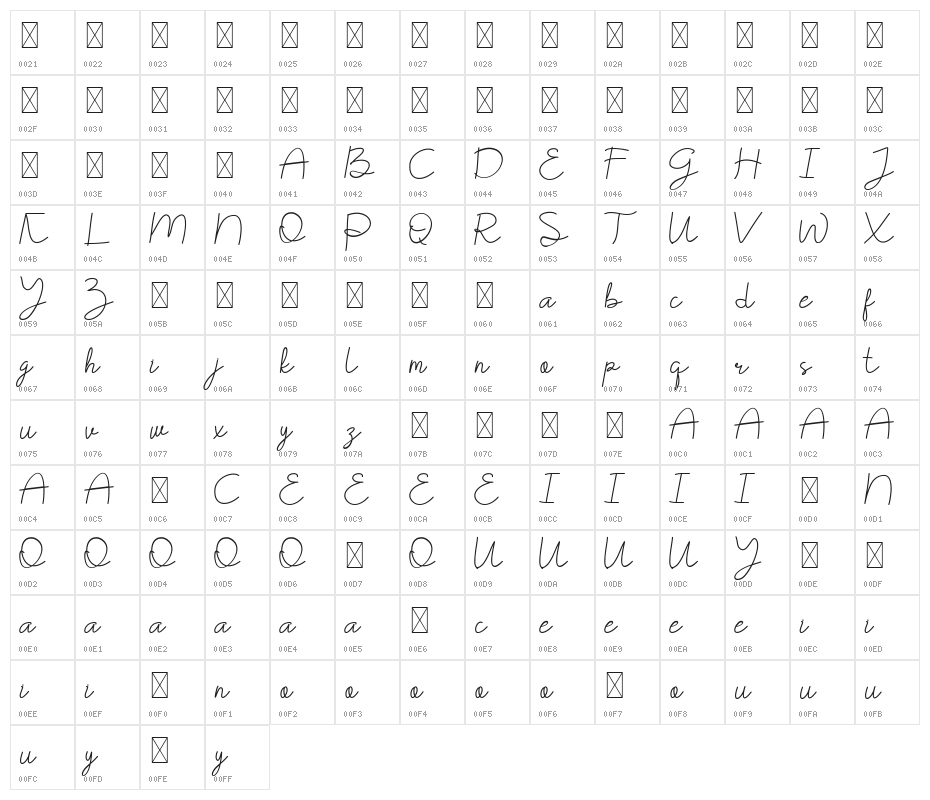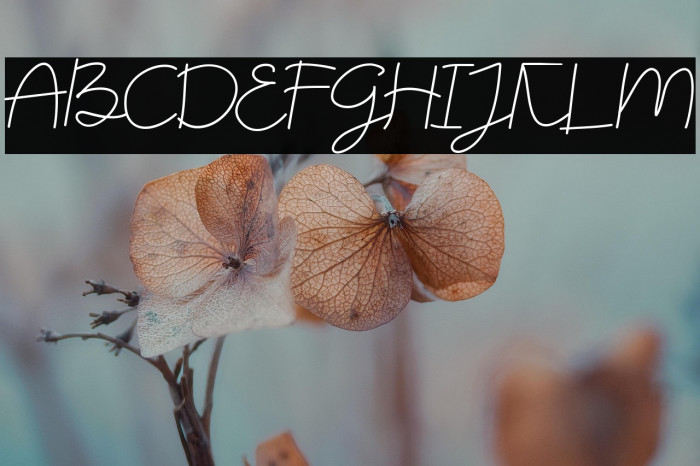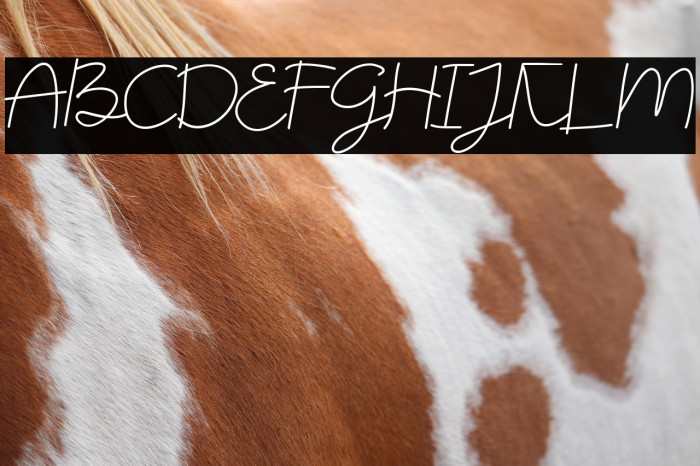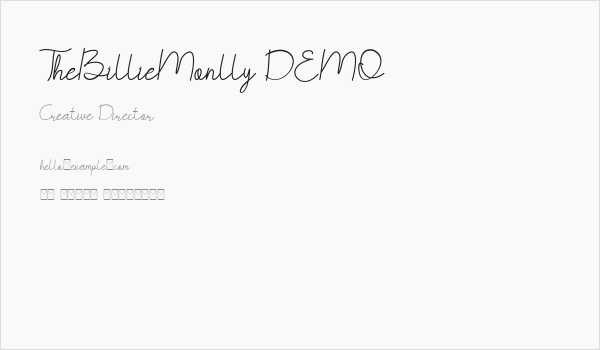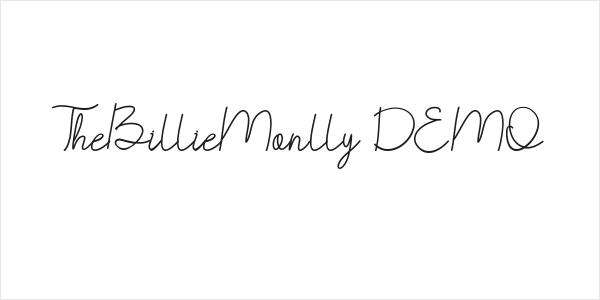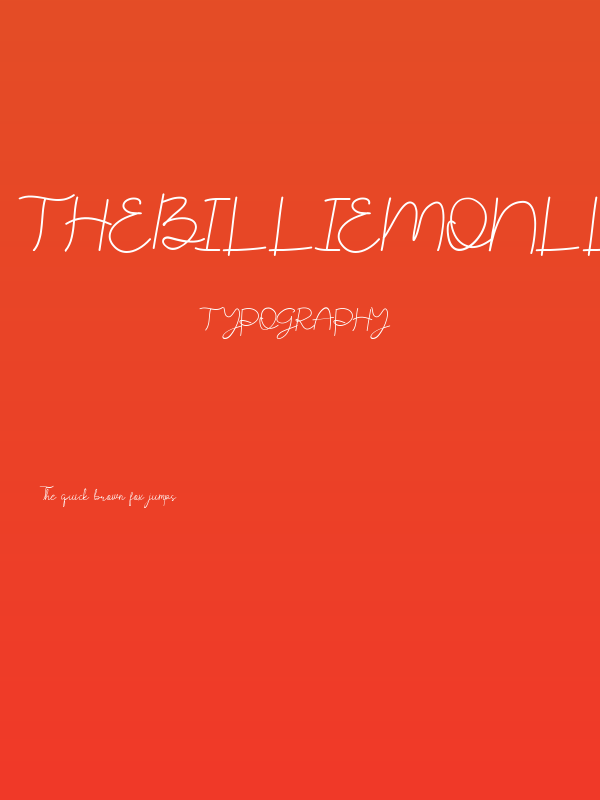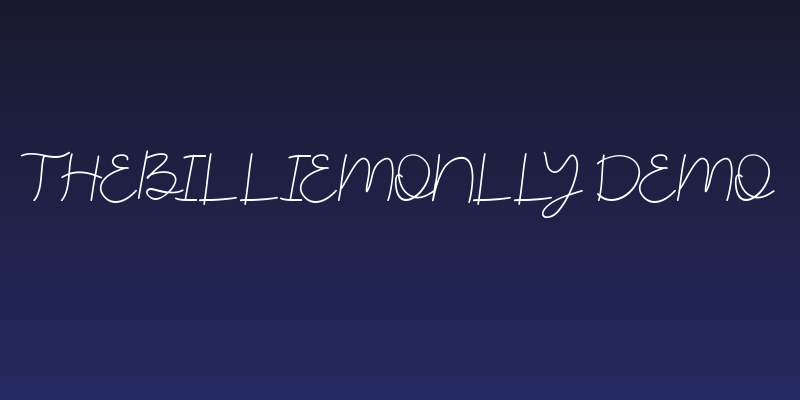
TheBillieMonlly DEMO Font
TheBillieMonlly DEMO Description
This font features an elegant and flowing script style, characterized by its smooth, cursive lines and a handwritten appearance. The uppercase letters are tall and slender, with a slight slant that adds a dynamic feel. The lowercase letters maintain a consistent flow, with rounded forms and graceful loops, enhancing its readability. The font exudes a sense of sophistication and charm, making it suitable for projects that require a personal touch. Its overall design is both modern and timeless, appealing to a wide range of audiences.
| Use Case | Logos, Invitations, Personal stationery |
| Proposed Projects | Ideal for wedding invitations, greeting cards, branding, and personal stationery. |